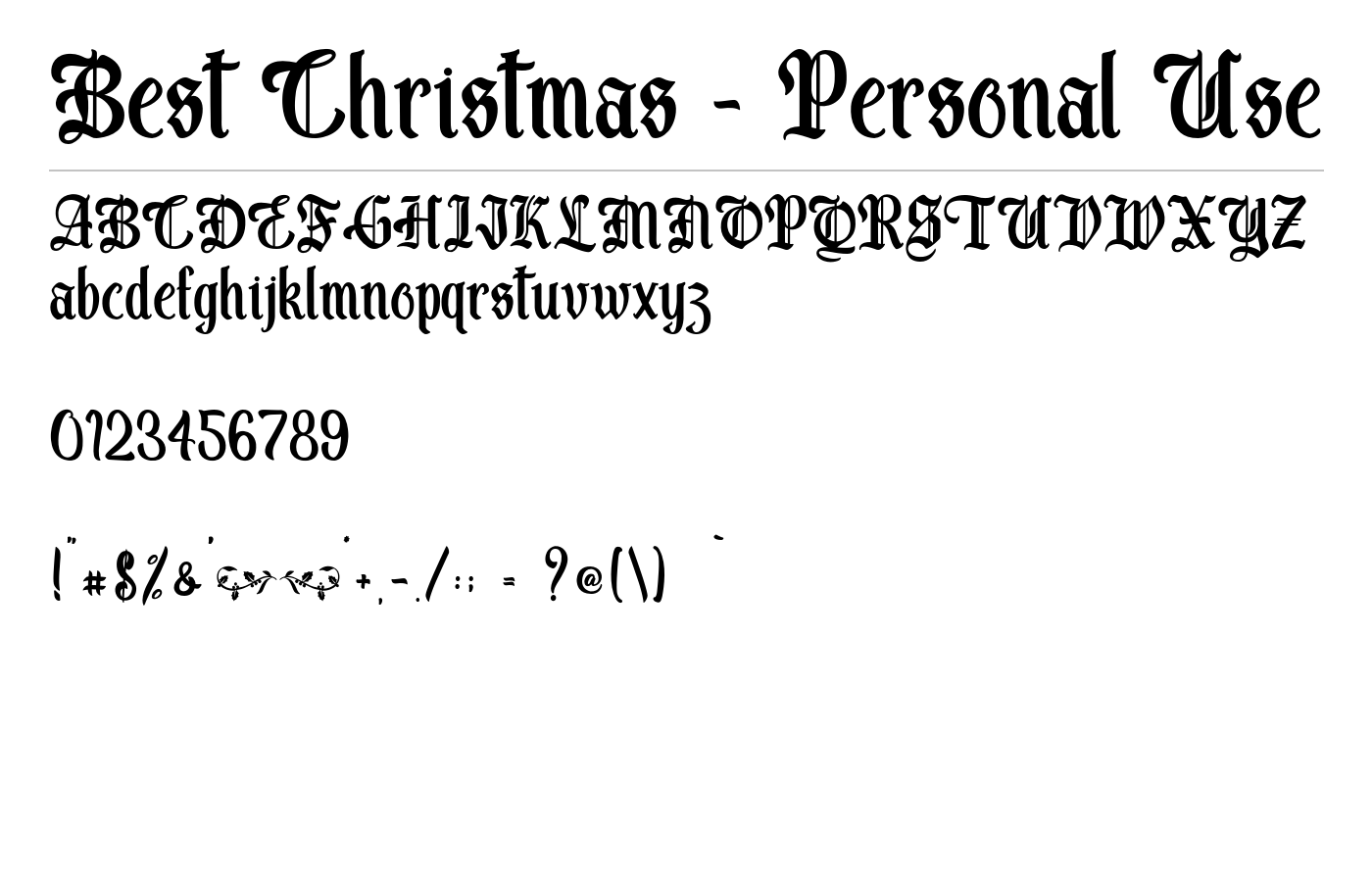
Best Christmas is a decorative blackletter-style serif font with strong gothic influences, featuring high contrast between thick and thin strokes and elegant, intricate details. Its ornate letterforms with single-story 'a' and sharp, bracketed serifs give it a vintage, festive feel, making it ideal for holiday-themed designs, invitations, and decorative headlines. This font brings a classic, nostalgic charm that works beautifully for seasonal branding and elegant display use.
Best Christmas - Personal Use Font
About Best Christmas - Personal Use Font
| Font family | Best Christmas - Personal Use Font |
| Designer | Typhoon Type™ - Suthi Srisopha |